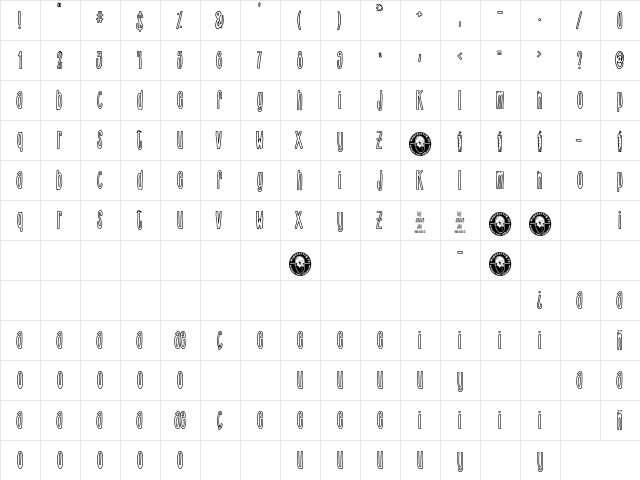
big Junkie Joe Regular
| Designer | Woodcutter Manero |
Design Context for big Junkie Joe Typeface
big Junkie Joe is a composed and adaptable typeface that performs quietly and consistently across a wide range of design contexts.